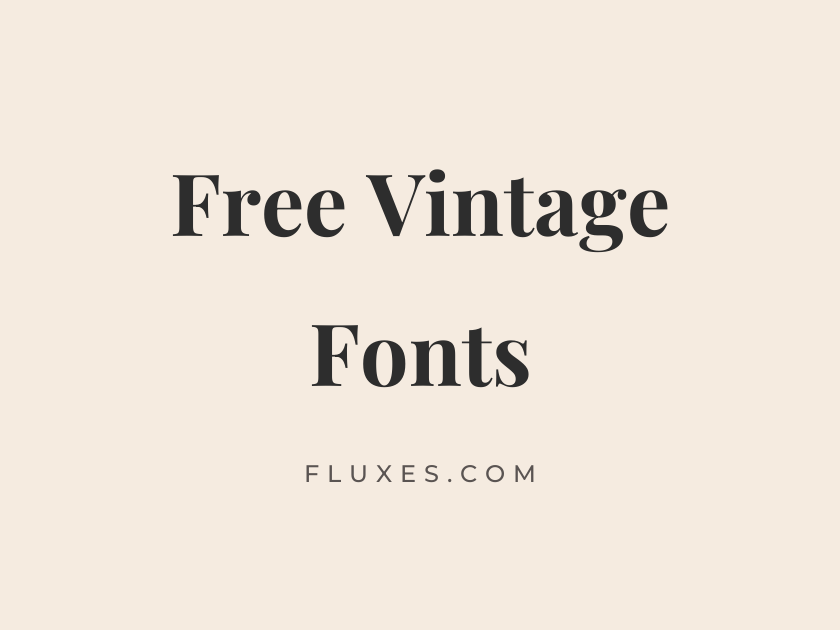
64 Best Free Vintage Fonts
Vintage design pulls from more eras than any single decade can hold: Victorian letterpress, Wild West saloon signage, art deco marquees, mid-century diners, typewritten correspondence, and hand-painted circus banners all read as “vintage” depending on context. The good news for anyone building a menu, label, poster, or wedding suite with old-world character is that Google Fonts now covers nearly all of that territory for free. What follows is a wide-ranging survey of free vintage fonts spanning distressed slab serifs, ornate blackletter, saloon-style display faces, and looping vintage scripts, so you can match the exact decade and mood your project calls for.
1. Playfair Display
Est. 1889, Fine Goods & Curiosities
High-contrast strokes and a sharp, editorial poise give this serif the feel of a well-funded Victorian newspaper masthead. It reads as upscale vintage rather than dusty antique, which is why it turns up constantly on wine labels and boutique branding.
2. Abril Fatface
Grand Opening Circus Spectacular
Thick, glossy, and unapologetically loud, Abril Fatface channels old French poster lettering from the turn of the century. It works best at large sizes as a headline, since the extreme weight can clog at small text.
3. Old Standard TT
Chapter One: An Unexpected Journey
Modeled on nineteenth-century academic printing, this serif has the slightly worn, ink-heavy look of an old scholarly text. It suits book interiors, antique reprints, and any project that wants to feel like a genuine period document rather than a modern pastiche.
4. EB Garamond
Handwritten letters from a bygone era
A faithful digital revival of Claude Garamond’s Renaissance type, this face carries centuries of printing history in its curves. It sets long passages beautifully and pairs naturally with almost any bolder vintage display font for a title.
5. Libre Baskerville
Fine Stationery Since the Old Days
Baskerville’s crisp transitional serifs have always suggested formality and permanence, and this web-optimized version keeps that gravitas while staying legible on screen. It is a dependable body-text partner for flashier vintage headline faces.
6. Vollkorn
Baked fresh, the old-fashioned way
Sturdy and warm, Vollkorn was designed to feel approachable rather than aristocratic, which makes it a good match for rustic bakery and farmhouse branding. Its slightly rounded serifs soften the vintage look without losing period authenticity.
7. Bitter
Local news from a quieter time
A slab serif built for on-screen reading, Bitter has enough texture to feel like old newsprint while staying comfortable in long paragraphs. It is a practical choice when a vintage newspaper or gazette feel needs to hold up in body copy.
8. Arvo
Genuine Leather Goods, Handmade
Geometric and boxy, Arvo leans toward the sturdy typewriter-and-workshop side of vintage rather than the ornate side. It suits badges, stamps, and rugged Americana branding.
9. Rokkitt
Traveling Salesman's Almanac
Rokkitt softens the slab serif form with rounded joints, giving it a friendlier, storybook quality than most vintage slabs. It reads well in both headlines and set text, making it flexible for packaging that needs a full type system.
10. Crimson Text
Printed in the year of our founding
Loosely inspired by old-style book faces, Crimson Text has an unfussy literary quality suited to reprints, letterpress invitations, and historical fiction covers. It is quiet enough to disappear into the page, which is exactly the point for long-form vintage typesetting.
11. Spectral
A record of correspondence, preserved
Spectral was drawn for digital reading but keeps the calligraphic echoes of old-style serifs in its terminals. It brings a restrained, archival feeling to labels, certificates, and text-heavy vintage layouts.
12. Prata
Antique Maps & Nautical Charts
Prata’s fine, high-contrast serifs give it an engraved quality, as if it were cut for a bank note or an old atlas. Use it sparingly at display sizes; the delicate hairlines lose definition when set too small.
13. Lustria
Preserved fruits, jams, and pickles
There is a homespun, early-twentieth-century warmth to Lustria that suits farm-stand labels and preserve jars especially well. It feels less formal than most serif revivals, closer to a friendly hand-set advertisement than a fine book face.
14. Marcellus
Museum of Natural History, Est. 1901
Marcellus carries the cool, classical poise of engraved museum signage and old world maps. Its evenness makes it a dependable label or subhead font wherever a vintage project needs restraint rather than flourish.
15. Cinzel
Carved in stone, remembered always
Drawing on classical Roman capital letterforms, Cinzel feels less like flea-market vintage and more like antiquity itself, ideal for heritage crests, monograms, and anything wanting a timeless, engraved authority.
16. Cinzel Decorative
Grand Hotel & Opera House
The ornamental sibling of Cinzel adds swashes and flourishes that suit grand old hotel signage or theater marquees. Reserve it for titles and initials; the decoration is too busy for running text.
Adding a little letter spacing, subtle texture, or a warm off-white background can push any of these fonts further into authentic period territory without changing the letterforms themselves.
With this many free vintage fonts available through Google Fonts, there is rarely a reason to reach for a paid antique revival. Choose the couple of faces that match your specific era and mood, download the weights you need, and let the type do the work of setting the scene.